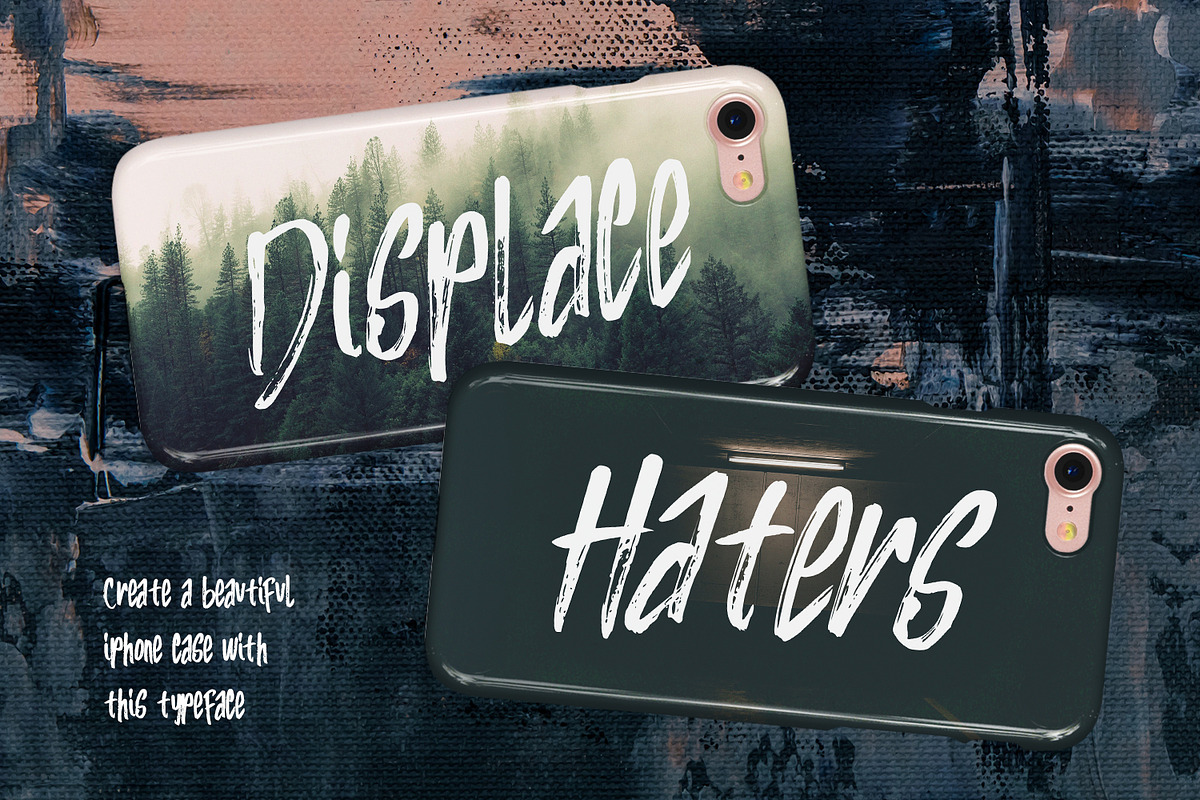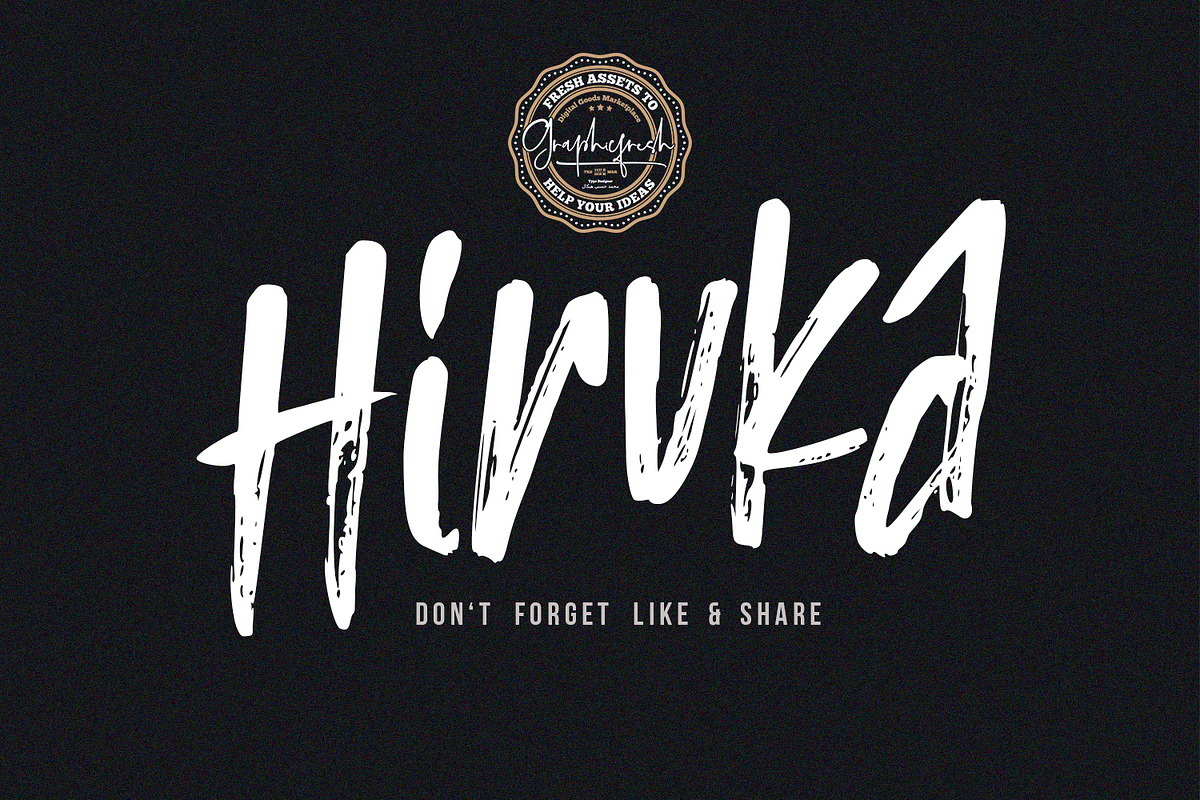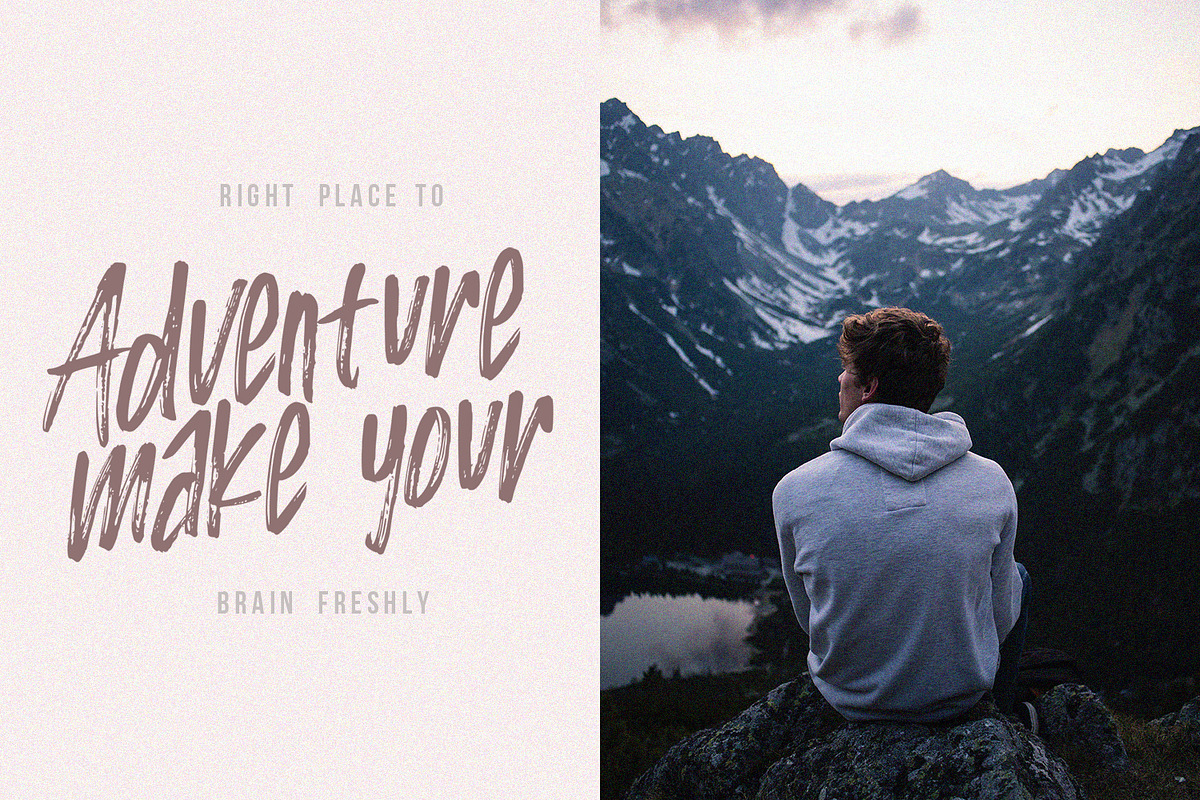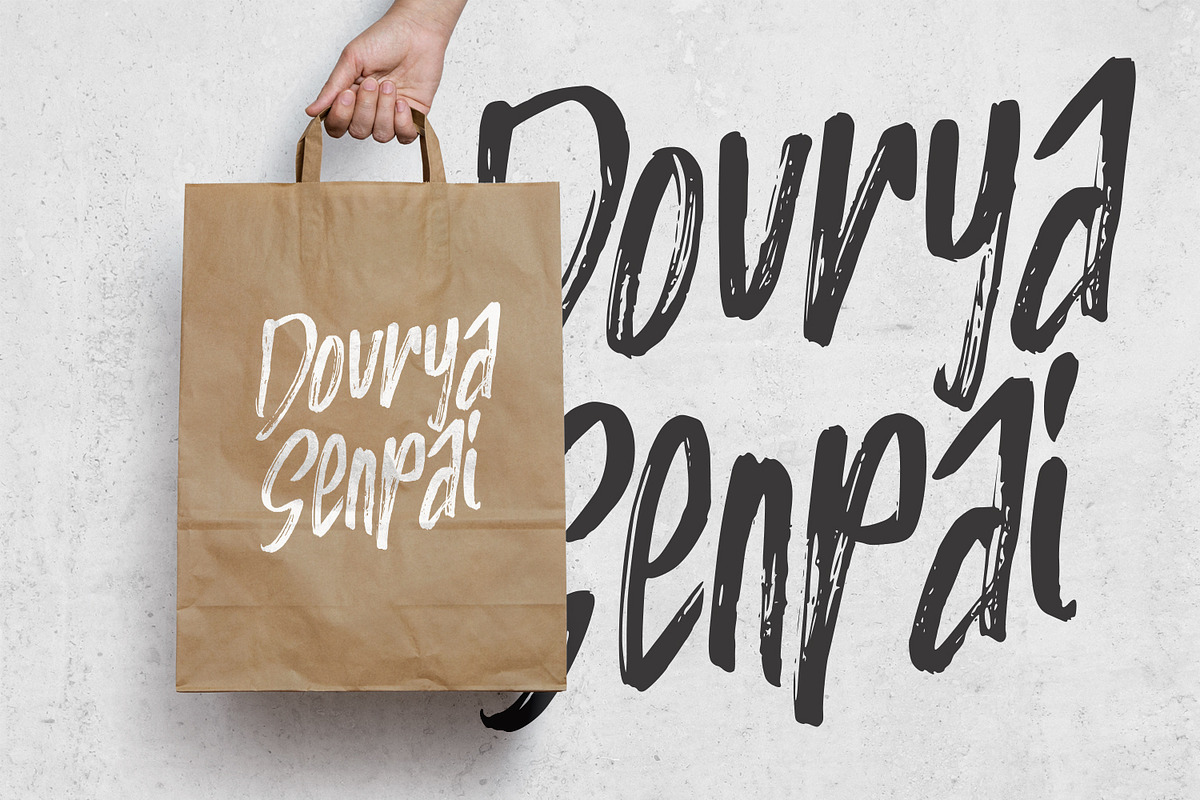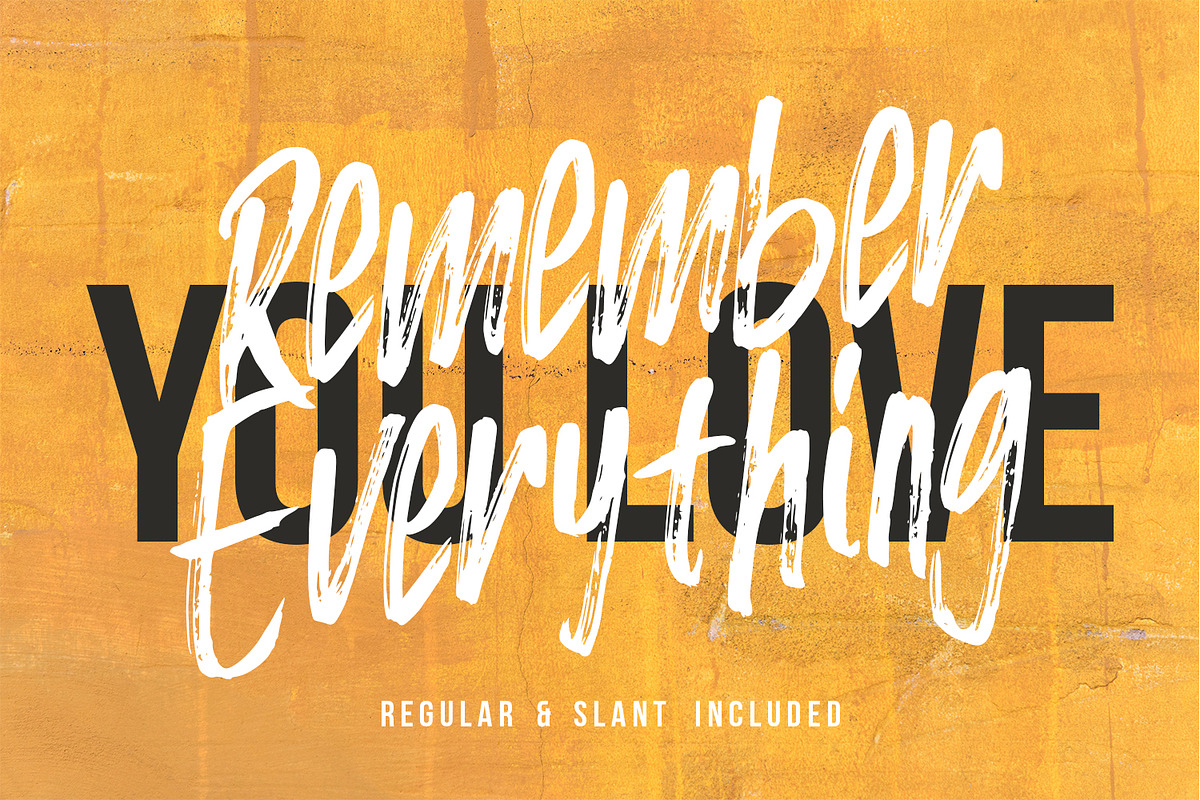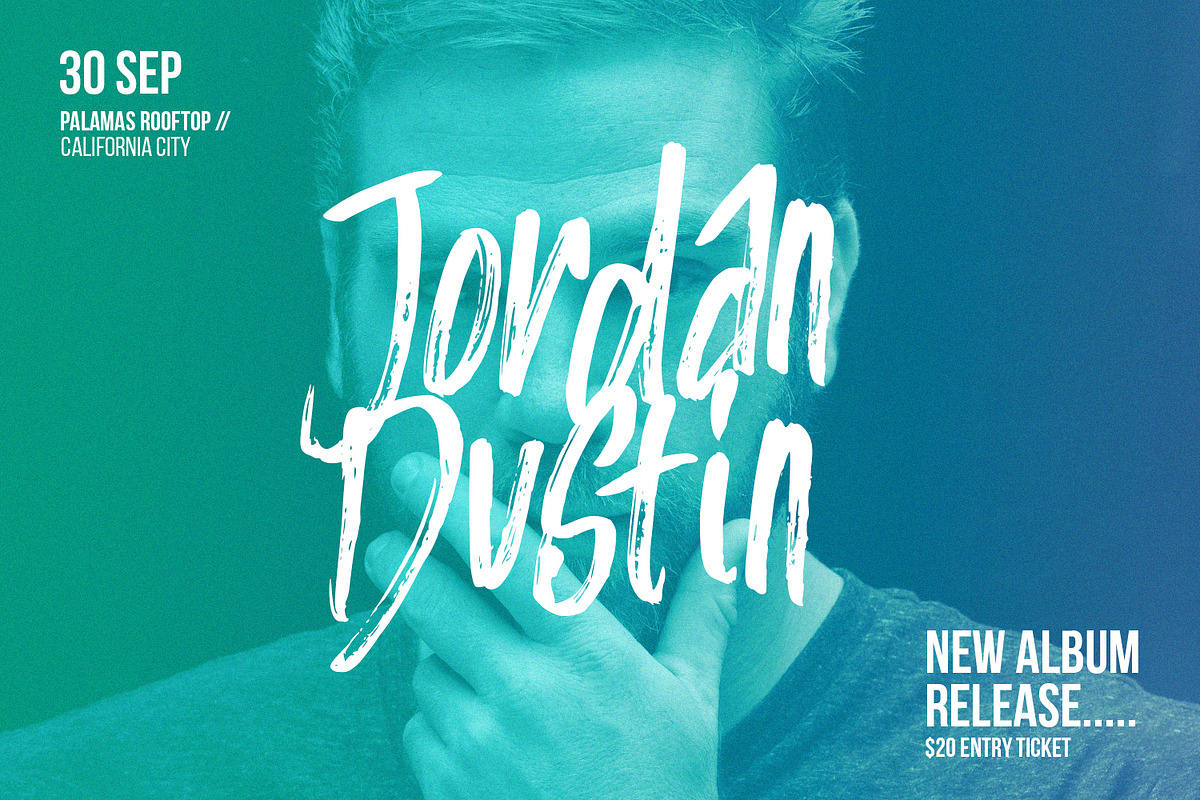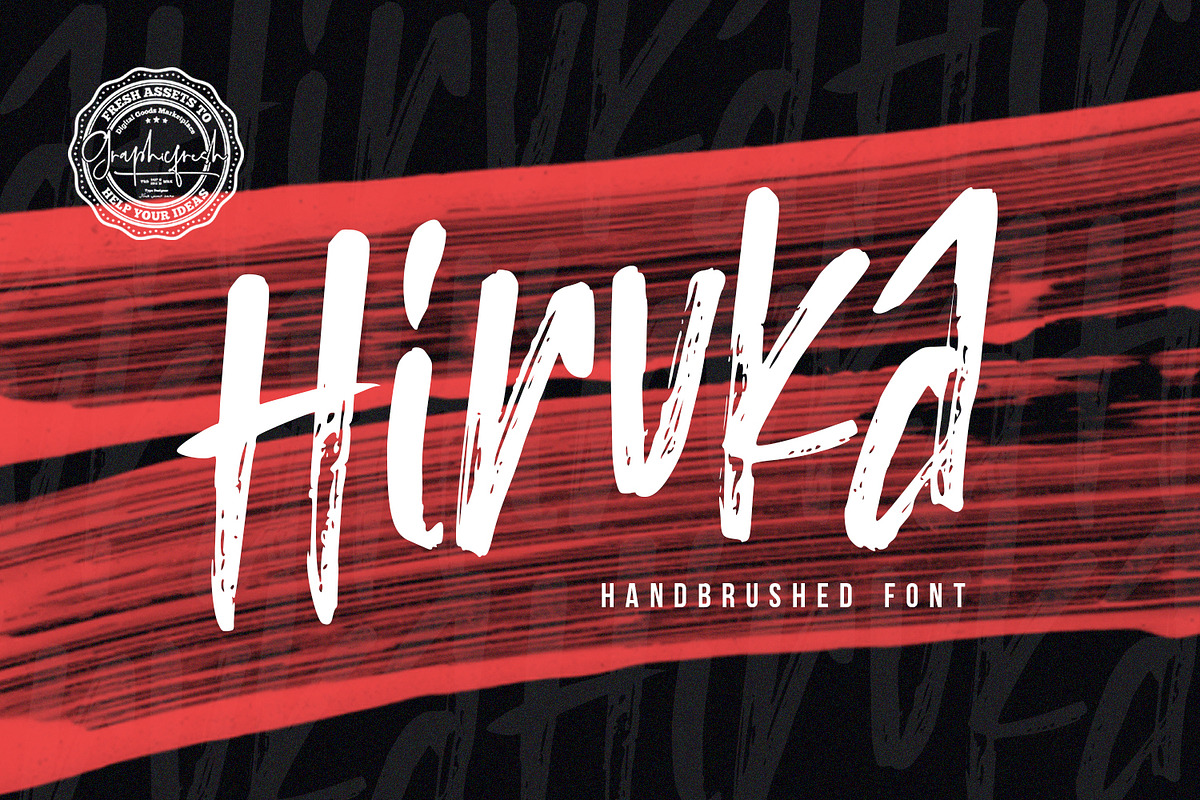
HIRUKA - Handbrushed Font
Hi everyone, this time we made a font of ink streaks on paper. We created this font using a brush. We love to make it, because this is a work of art itself. Making it through a long process. Every letter we make has always maintained its distinctive style. We hope you are all happy with our latest font.
1. Hiruka - Regular and Slant version, Handbrushed font including upper & lowercase characters, numerals and more of symbols.